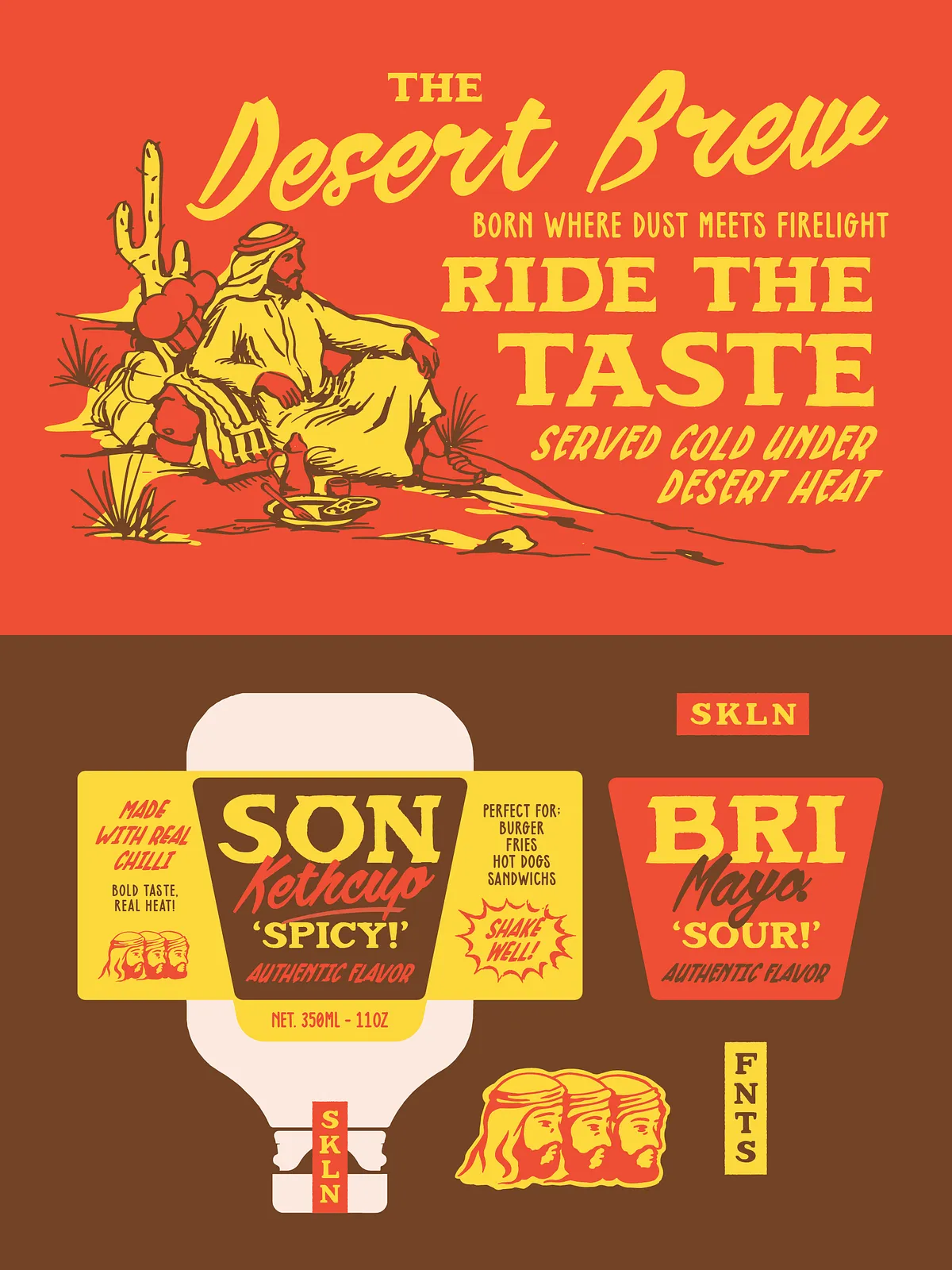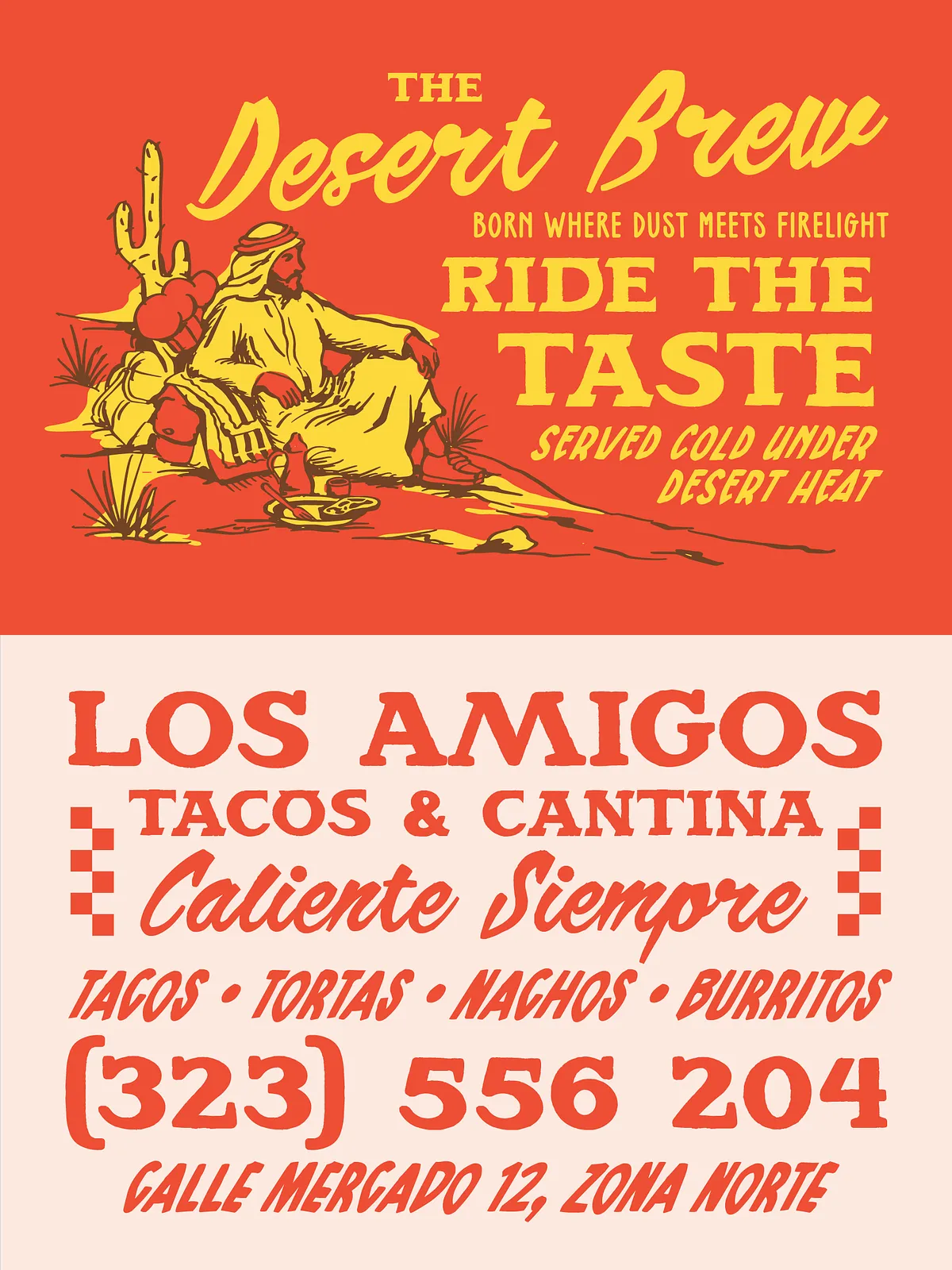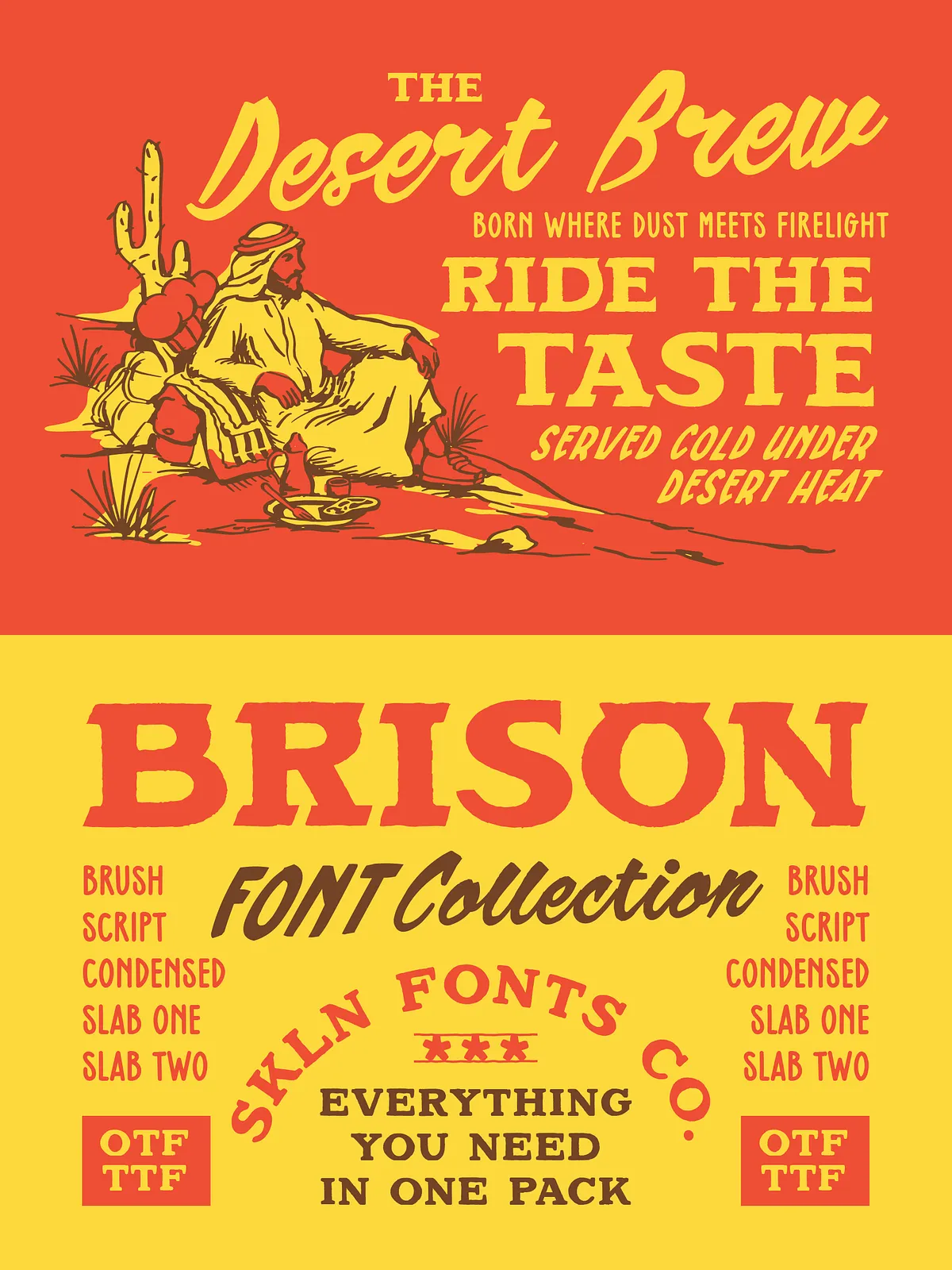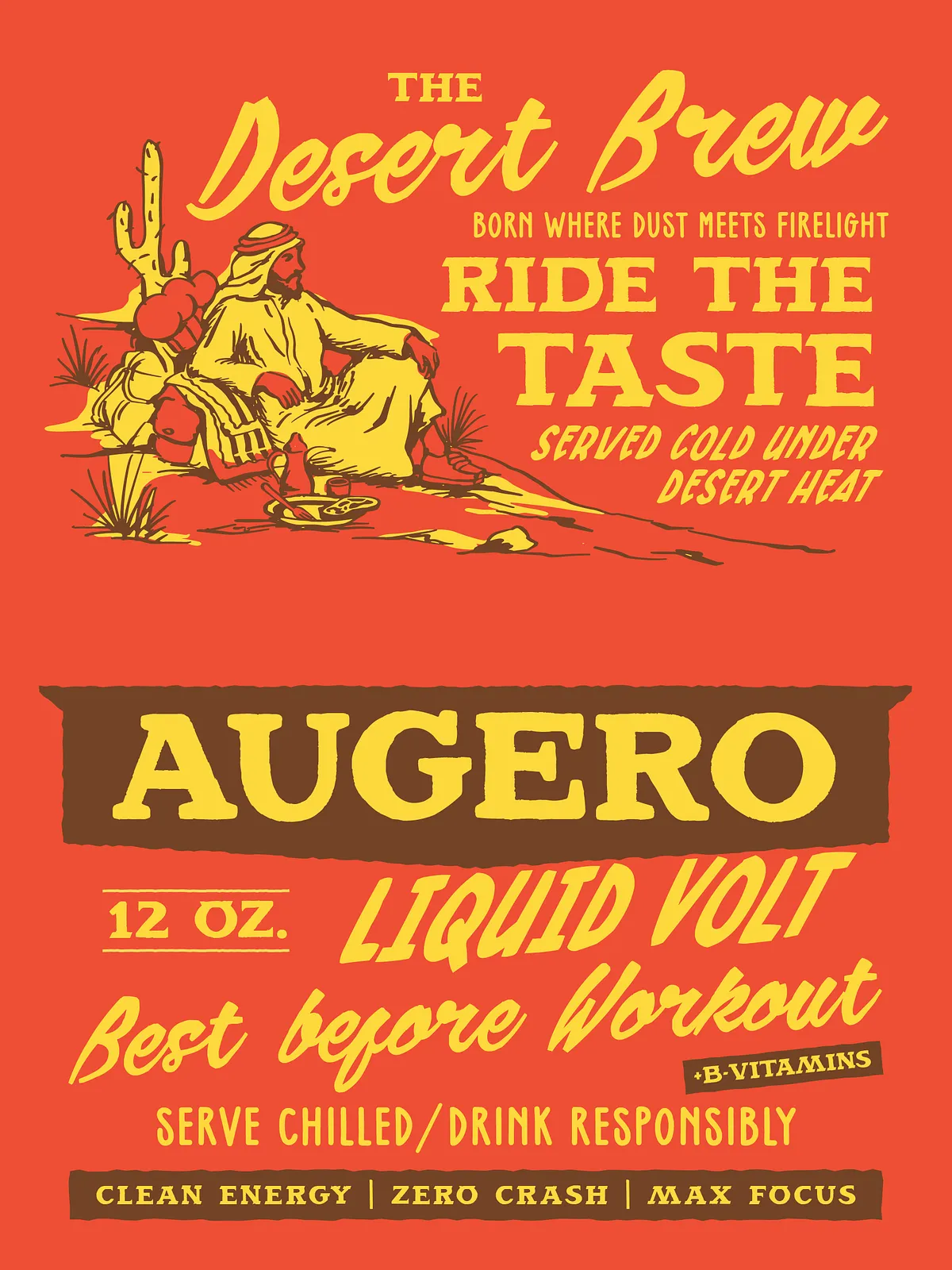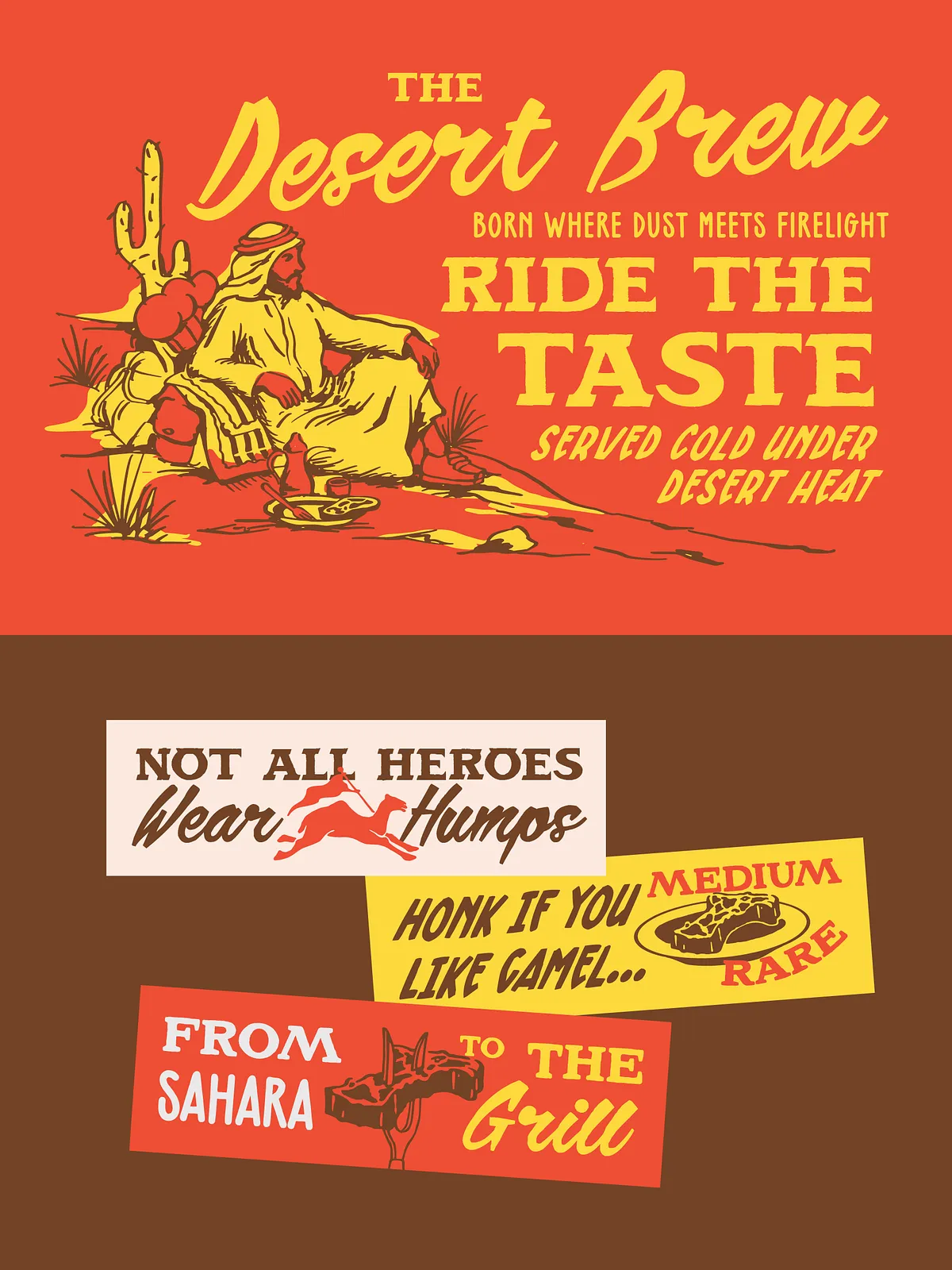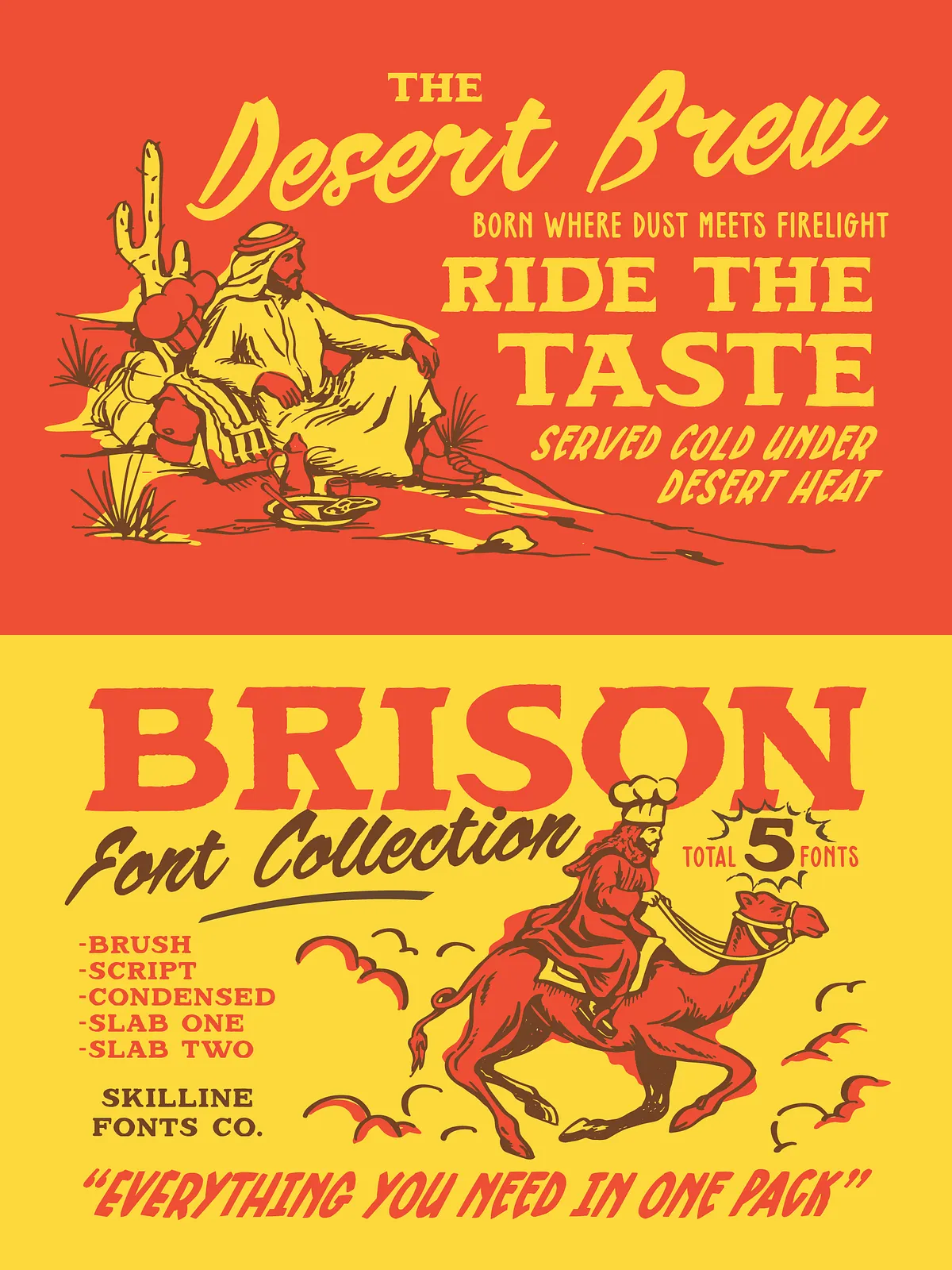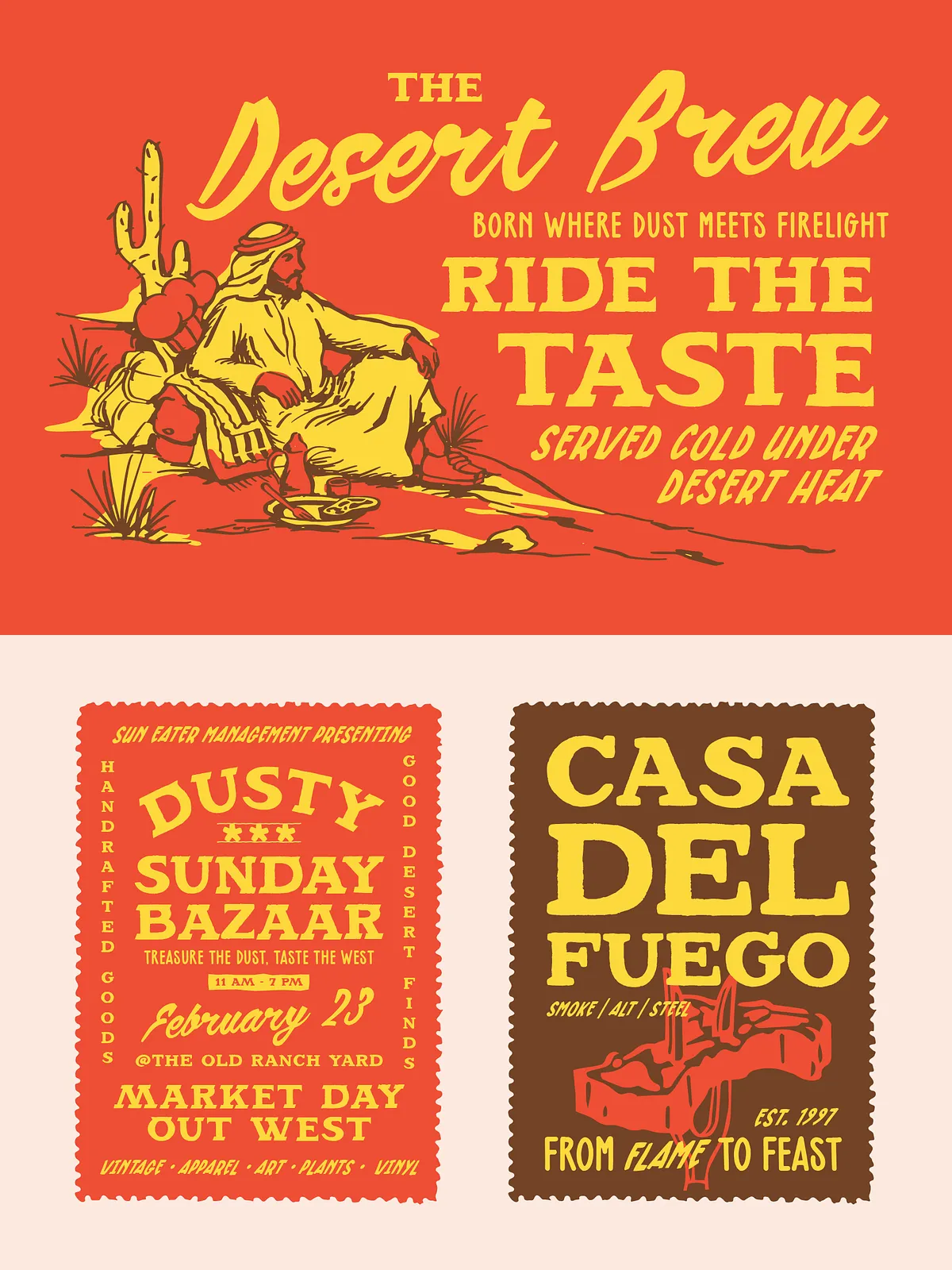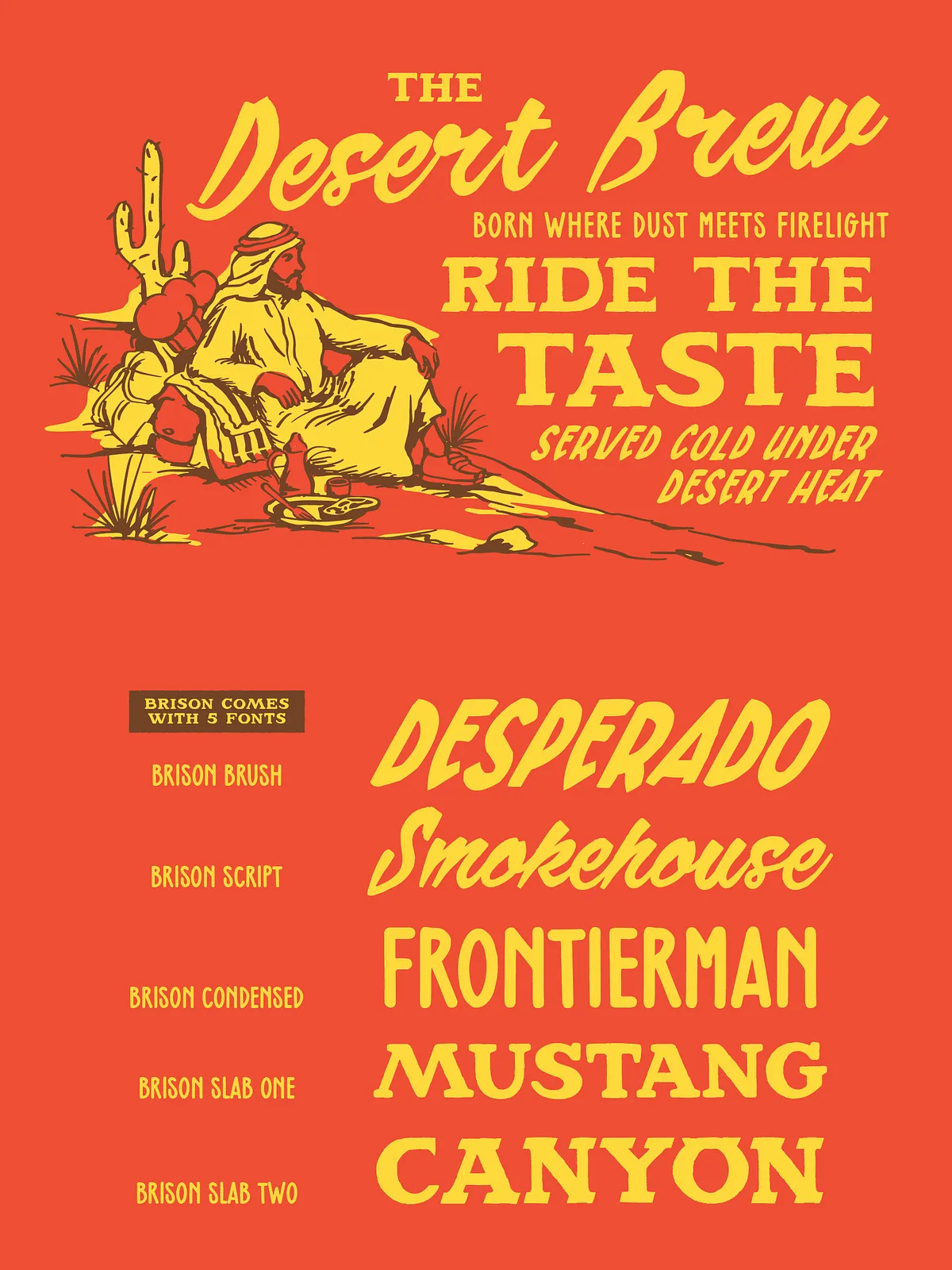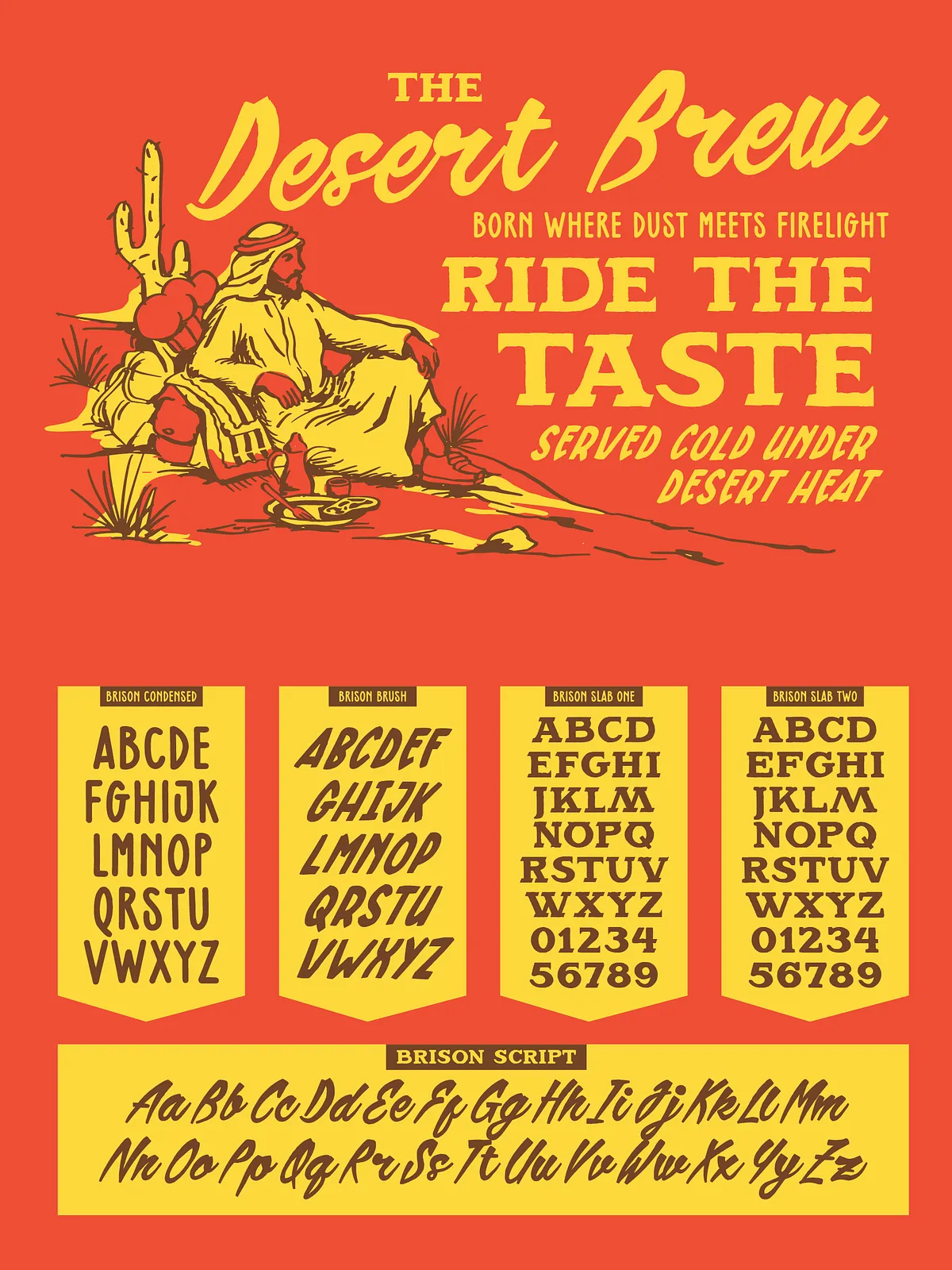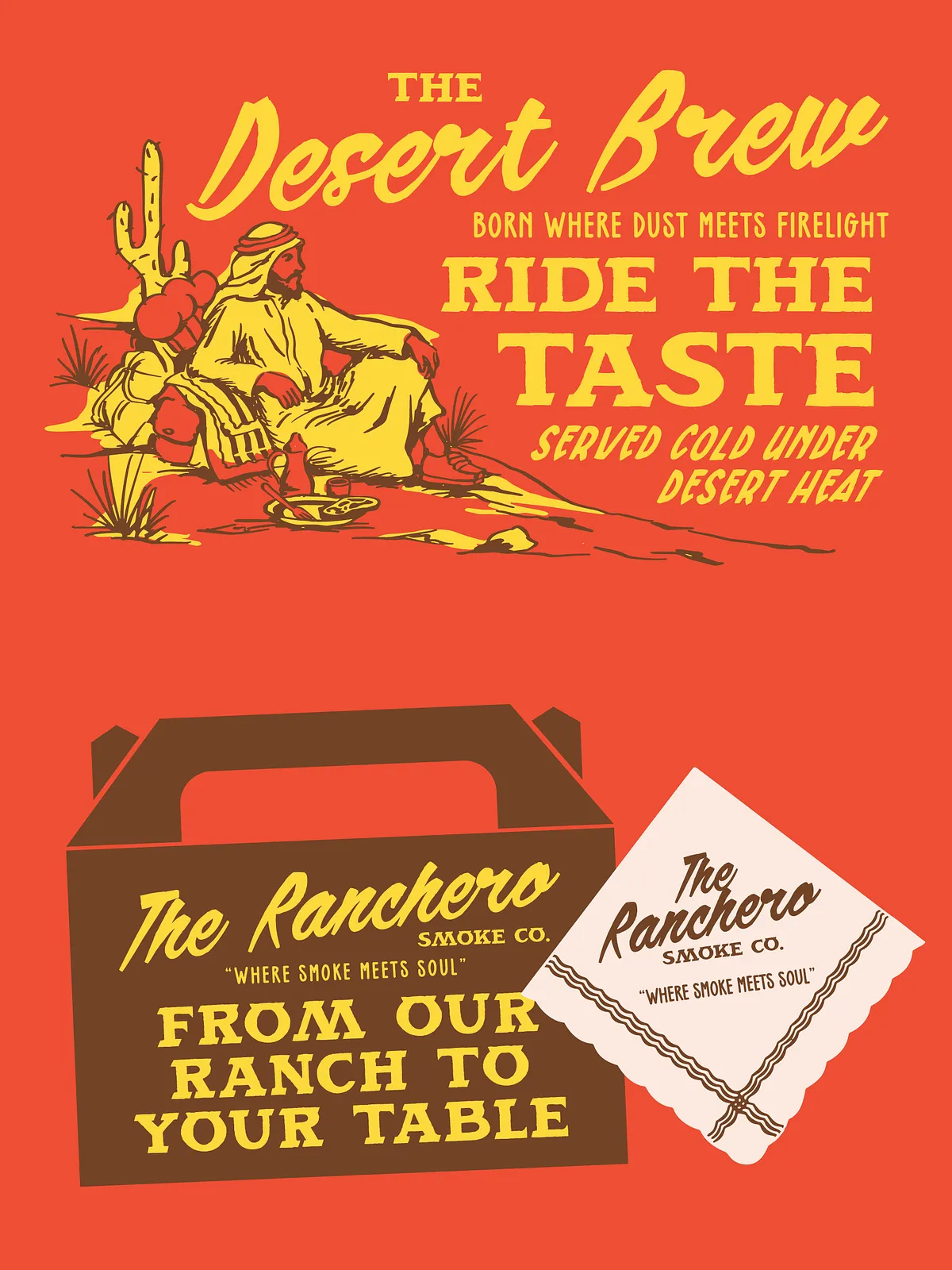
The SFC Brison Font Collection is a bold retro western typeface bundle meticulously crafted for designers who demand authentic vintage energy combined with strong commercial versatility. Inspired by the rugged aesthetics of classic smokehouse signage, desert roadside graphics, old ranch typography, western cinema posters, and vintage Americana packaging, Brison delivers a distinctively handcrafted look that instantly captures attention.
This collection is designed to breathe life into your projects with unmistakable bold character. Whether you are branding a new BBQ restaurant, designing hot sauce labels, creating cantina menus, developing packaging, or producing western apparel and retro posters, Brison provides the perfect typographic foundation. The collection’s versatility ensures that it works seamlessly across various mediums, bringing a touch of the Wild West to modern design challenges.
Explore the Five Distinct Styles
What makes the SFC Brison collection truly exceptional is its diversity. You receive five distinct styles, each offering a unique personality while maintaining a cohesive family identity. This allows for creative mixing and matching, enabling you to create dynamic visual hierarchies and engaging compositions.
1. Brison Brush
This style captures the raw, energetic feel of hand-painted signs. The brush strokes are bold and dynamic, perfect for headlines that need to shout with confidence. It’s ideal for grabbing attention in posters, logos, and packaging.
2. Brison Script
Evoking the elegance of old-school western saloon signs and handwritten letters, Brison Script offers a flowing, authentic cursive look. It adds a personal, handcrafted touch to your designs, making it perfect for invitations, labels, and branding elements that require a human touch.
3. Brison Condensed
For spaces where space is at a premium, Brison Condensed delivers maximum impact with a narrow profile. This style is perfect for side-of-truck lettering, vertical banners, and tight layout designs where you need to pack a punch without taking up too much horizontal space.
4. Brison Slab One
A sturdy slab serif that exudes strength and durability. Brison Slab One is inspired by old wanted posters and broadside prints. It’s an excellent choice for body text, subheadings, or any design element that needs to convey stability and tradition.
5. Brison Slab Two
Similar to Slab One but with its own unique character variations, Brison Slab Two offers another layer of versatility. It complements the other styles in the collection, allowing for rich textural contrast in your layouts.
Comprehensive Features and Specifications
The SFC Brison Font Collection is equipped with all the necessary features to support professional design workflows. It includes a full set of uppercase and lowercase characters, numbers, and punctuation marks to ensure your designs are complete and polished.
- Uppercase & Lowercase Characters: Complete character set for full typographic control.
- Numbers & Punctuation: Fully supported numerals and symbols for practical application.
- Multilingual Support: Capable of handling various Latin-based languages, expanding its usability for global projects.
- Easy Font Pairing: The diverse styles within the collection are designed to pair effortlessly, allowing for creative versatility without clashing.
Perfect Applications for Brison
The retro western aesthetic of SFC Brison is incredibly versatile. Here are some of the best ways to use this collection:
- BBQ & Food Branding: Create appetizing and memorable branding for smokehouses, burger joints, and food trucks.
- Hot Sauce Labels: Add a kick of visual flavor to spicy product packaging.
- Cantina Menus: Design menus that transport customers to a rustic western setting.
- Western Apparel: Print unique designs on t-shirts, hats, and jackets that stand out.
- Retro Posters: Craft eye-catching posters for events, movies, and music festivals with a vintage vibe.
- Packaging Design: Enhance product packaging for goods that want to evoke nostalgia and authenticity.
Why Choose SFC Brison?
In a market saturated with generic typefaces, SFC Brison stands out as a powerful tool for designers looking to make a statement. Its authentic vintage aesthetic, combined with modern font technology, ensures that your designs remain relevant and impactful. The five distinct styles provide endless possibilities for creative expression, making it a valuable addition to any designer’s toolkit.
Whether you are a seasoned graphic designer or a small business owner looking to create professional marketing materials, Brison offers the perfect blend of style, functionality, and ease of use. Elevate your projects with the rugged charm and bold character of the SFC Brison Font Collection.